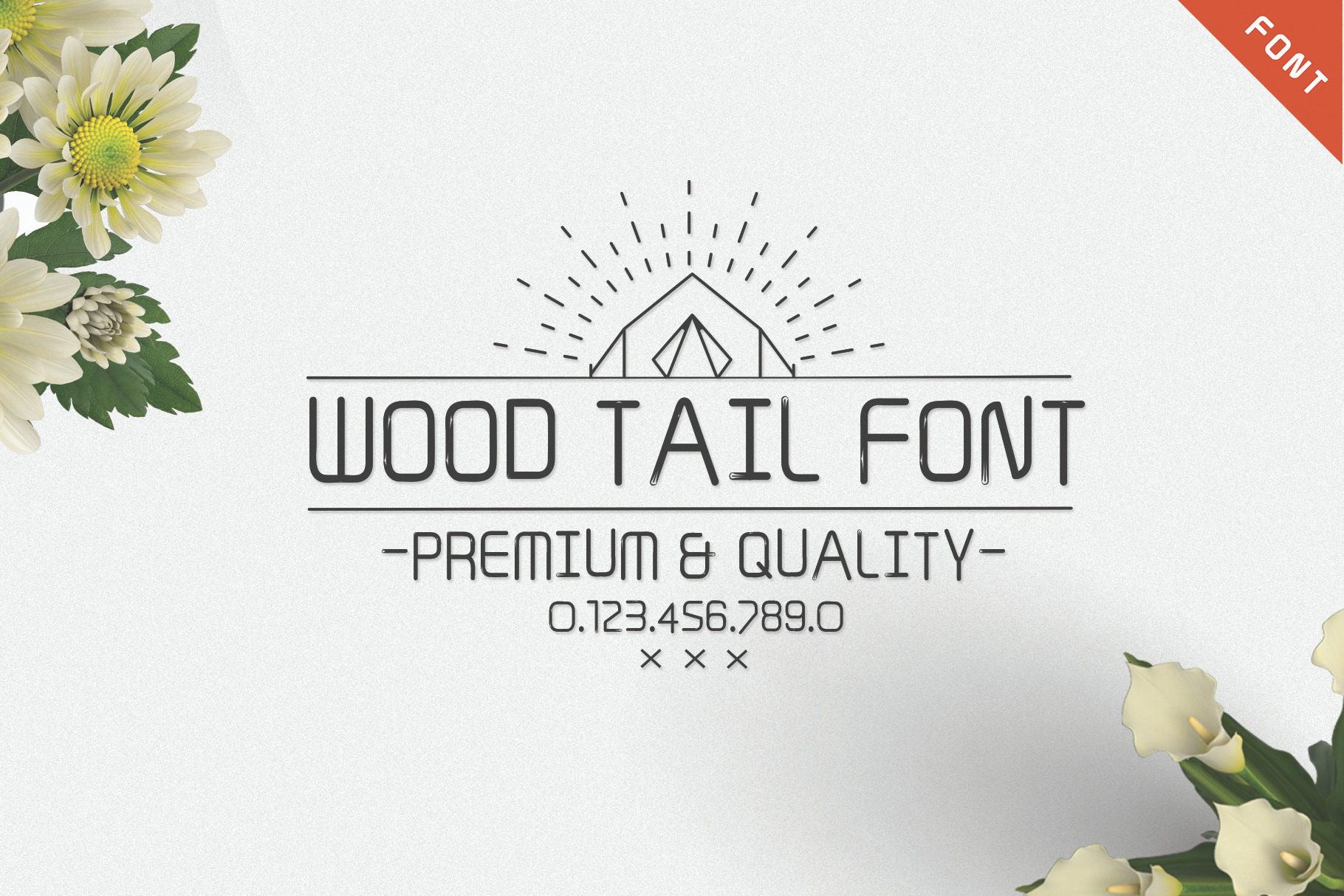
Wood Tail Font
Wood Tail Font is little grunge brush writing style. It 's perfect for organic products, cards, posters, wall art, branding, diy projects, greeting cards, labels, quotes, packaging, websites and much more.